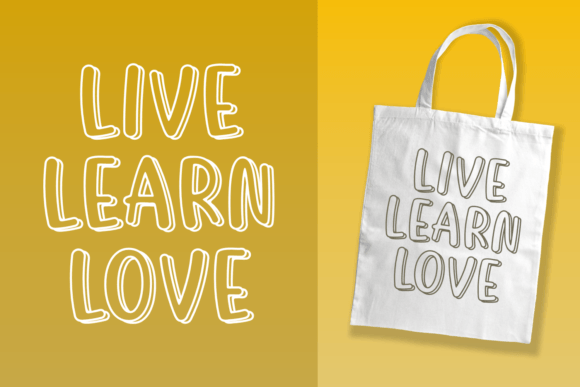
The Perfect Font for Making a Statement
Have you ever stared at a blank page, trying to come up with the perfect font to match your creative vision? I know I have. The struggle is real, but sometimes, all it takes is one glance at a beautiful font to spark inspiration. For designers, finding the right font can be the difference between a dull and a dazzling design.
Enter Holla Beauty Font, a playful and elegant display font that effortlessly blends sophistication with a touch of whimsy. Its unique personality makes it perfect for adding a dash of charm to invitations, headlines, and creative projects. Whether you’re a seasoned designer or just starting out, Holla Beauty Font is a valuable addition to your toolkit.
Holla Beauty Font Key Features
- Font Family: Holla Beauty is a sans-serif font family.
- Size: The font family includes multiple weights and styles, ranging from 100 to 900.
- Unique Characteristics: The font features a modern and elegant design, with a unique blend of rounded and geometric shapes, making it ideal for beauty and fashion-related projects.
Holla Beauty Font Review
At first glance, Holla Beauty Font is a visually stunning font that’s sure to catch the eye. ✨ The unique blend of modern and classic elements makes it perfect for designers looking to add some personality to their projects.
Here are some of the things I like about Holla Beauty Font:
- ✨ Versatility: Holla Beauty Font works well in a variety of contexts, from headlines to body text.
- ✨ Expressiveness: The font has a unique energy that can convey a sense of playfulness or sophistication, depending on how it’s used.
- ✨ Legibility: Despite its bold lines and flair, Holla Beauty Font is surprisingly easy to read.
- ⚠️ Limited language support: Holla Beauty Font may not be suitable for projects that require a wide range of language support.
- ⚠️ Potential overuse: The font’s unique style can be overwhelming if used too extensively.
Overall, I’d say Holla Beauty Font is a great choice for designers who want to add some visual interest to their projects. Just be mindful of its limitations and use it thoughtfully.
Tips for Getting the Most Out of Holla Beauty Font
Use Holla Beauty Font to add a touch of elegance and sophistication to your designs. Pair it with bold colors and geometric shapes for a modern look. Experiment with different font sizes and styles to create visual interest.
Holla Beauty Font is perfect for:
- Beauty and fashion branding
- Food and beverage packaging
- Travel and tourism branding
Alternatives to Holla Beauty Font
The Great Vibes Font is a beautiful, elegant, and cursive script font that is perfect for creating a warm and inviting atmosphere. It is ideal for use in wedding invitations, greeting cards, and other personal or formal invitations. Compared to Holla Beauty Font, Great Vibes Font has a more classic and timeless feel, while Holla Beauty Font has a more modern and playful vibe.
The Pacifico Font is a beautiful, modern script font that is perfect for creating a relaxed and beachy atmosphere. It is ideal for use in travel brochures, restaurant menus, and other marketing materials that require a laid-back and casual feel. Compared to Holla Beauty Font, Pacifico Font has a more laid-back and effortless feel, while Holla Beauty Font has a more vibrant and energetic vibe.
The Carolyna Pro Font is a modern, elegant, and sophisticated script font that is perfect for creating a luxurious and high-end atmosphere. It is ideal for use in luxury branding, fashion magazines, and other materials that require a touch of glamour and sophistication. Compared to Holla Beauty Font, Carolyna Pro Font has a more refined and polished feel, while Holla Beauty Font has a more playful and whimsical vibe.
Q: What is the recommended font size for optimal readability with Holla Beauty Font?
The recommended font size for optimal readability with Holla Beauty Font is between 12pt and 24pt. However, this may vary depending on the specific design, intended audience, and viewing distance. Experiment with different font sizes to find the optimal balance between legibility and visual impact.